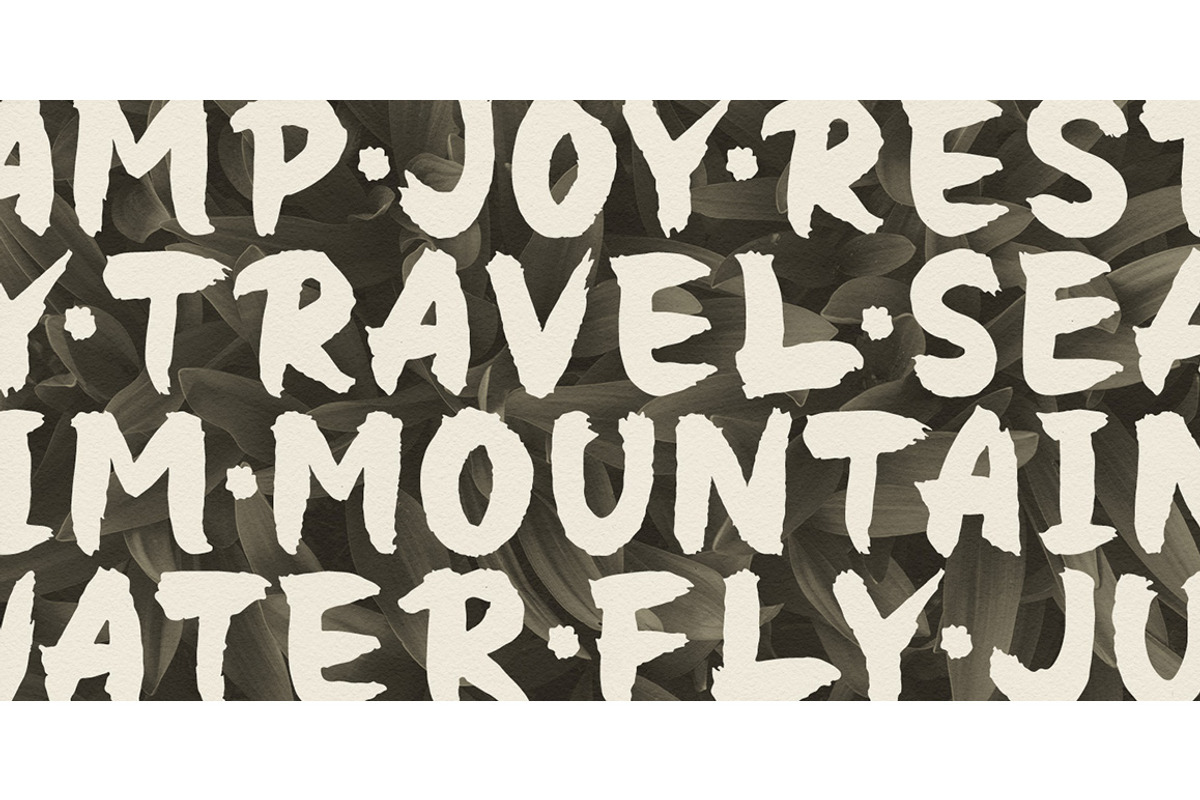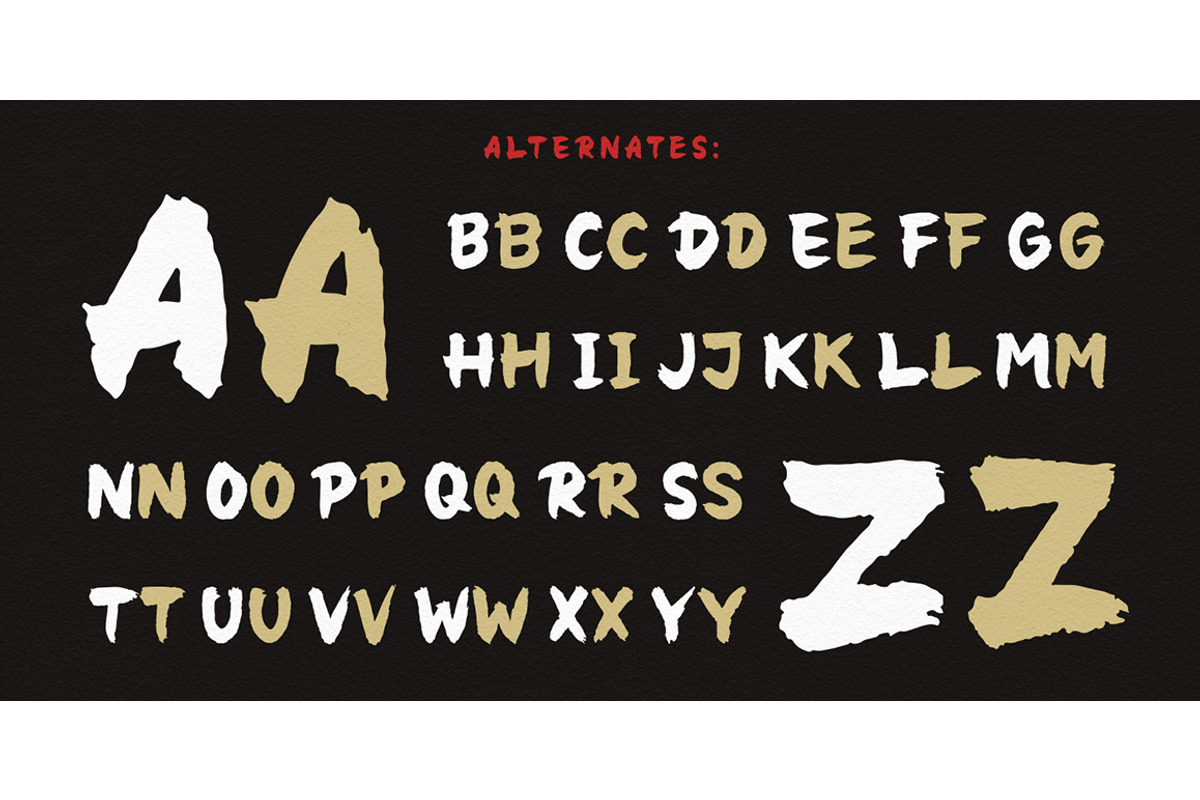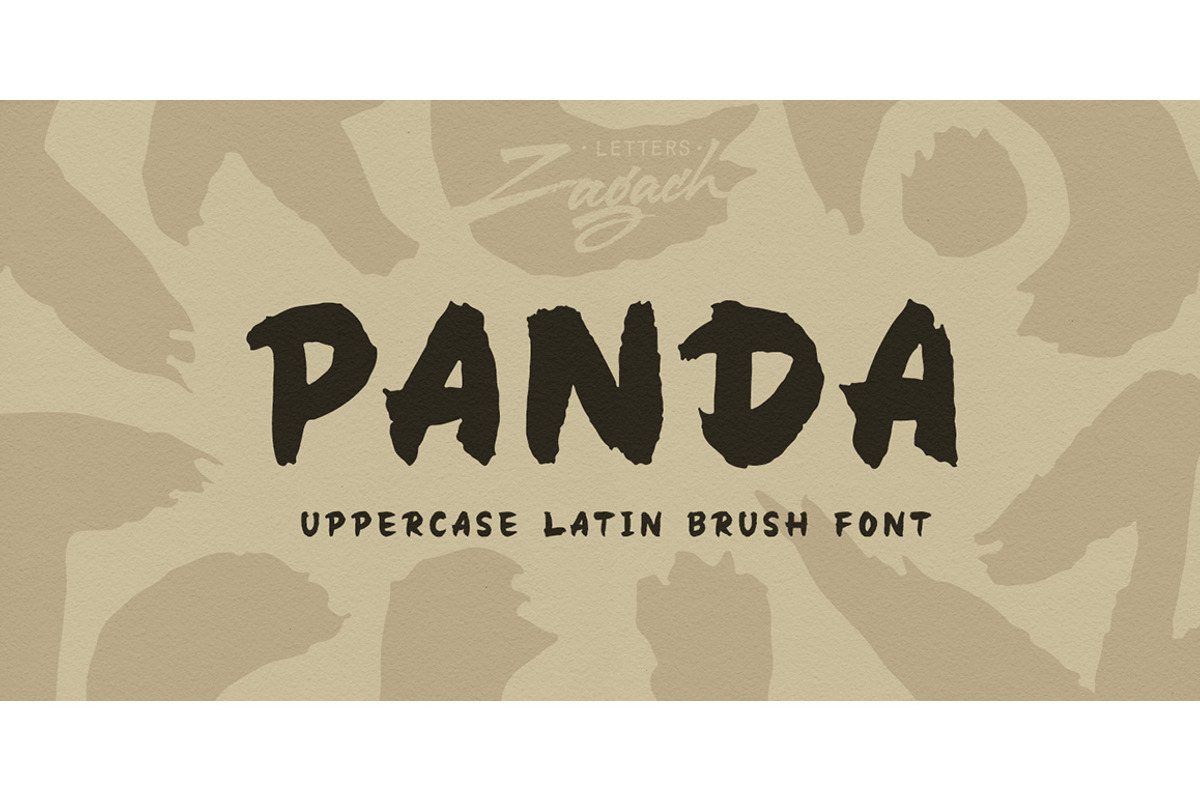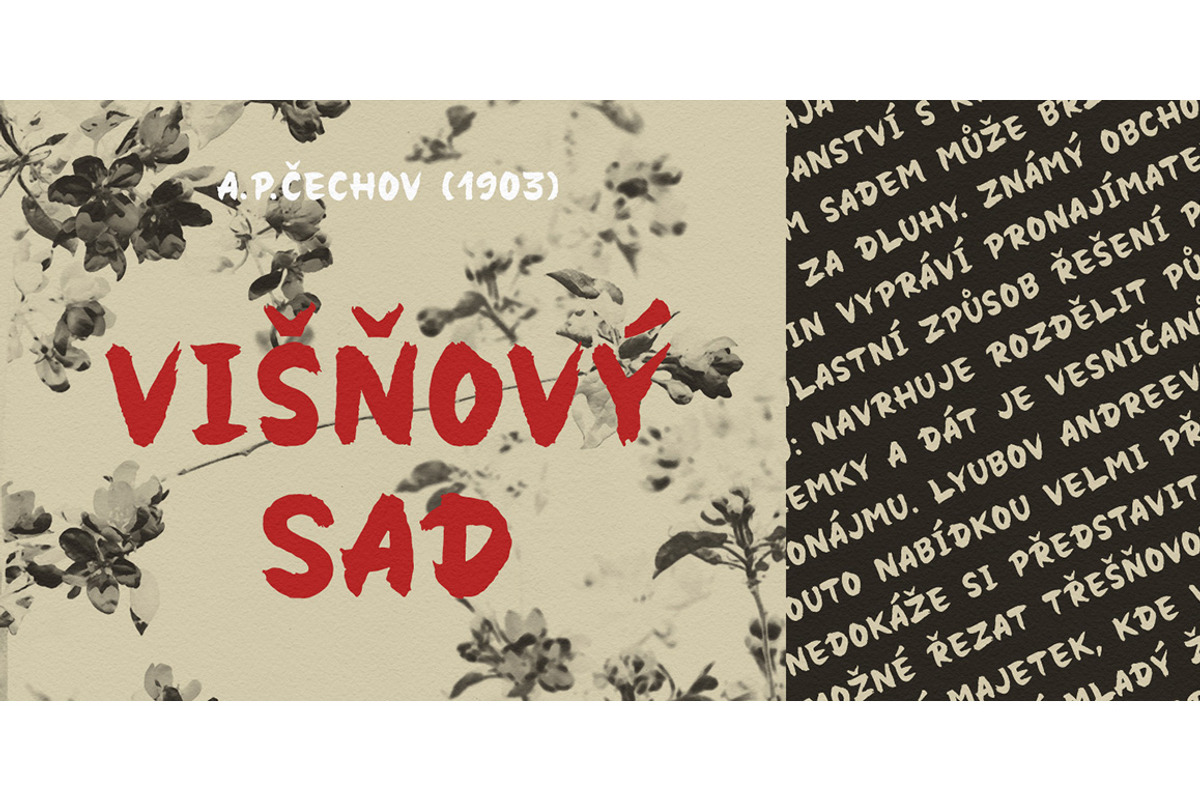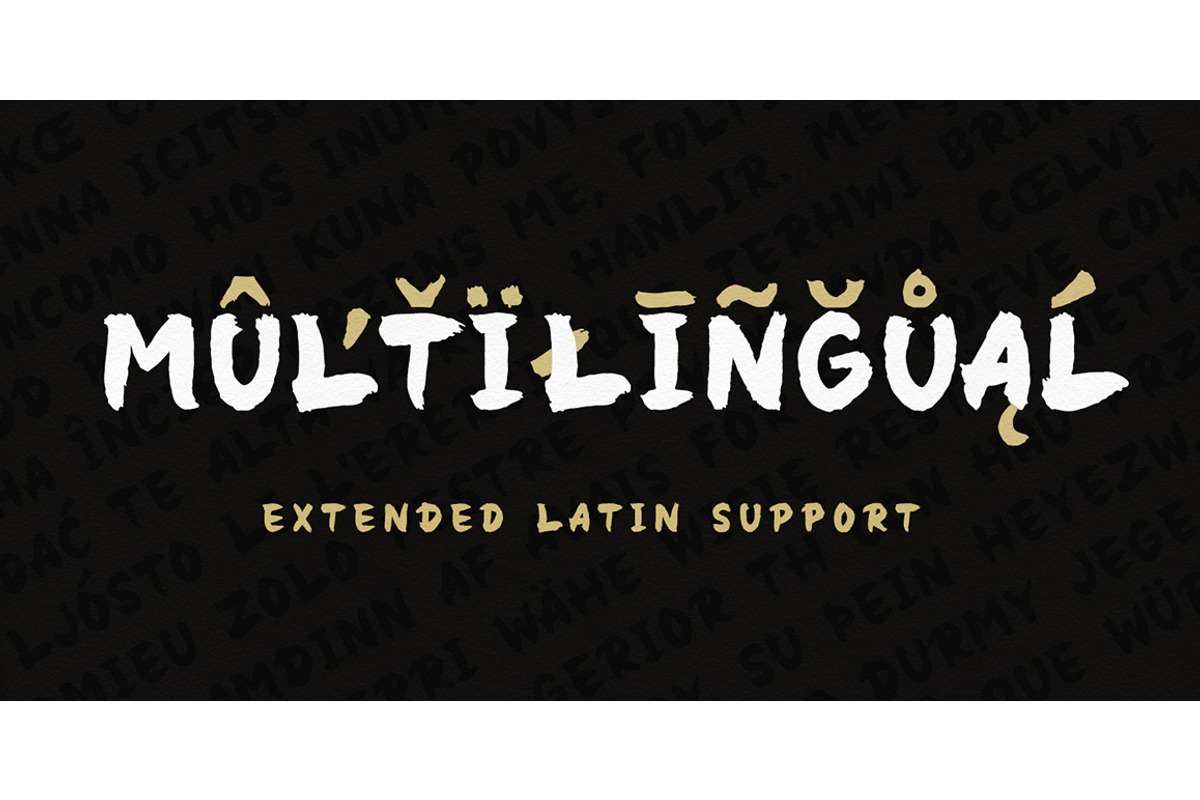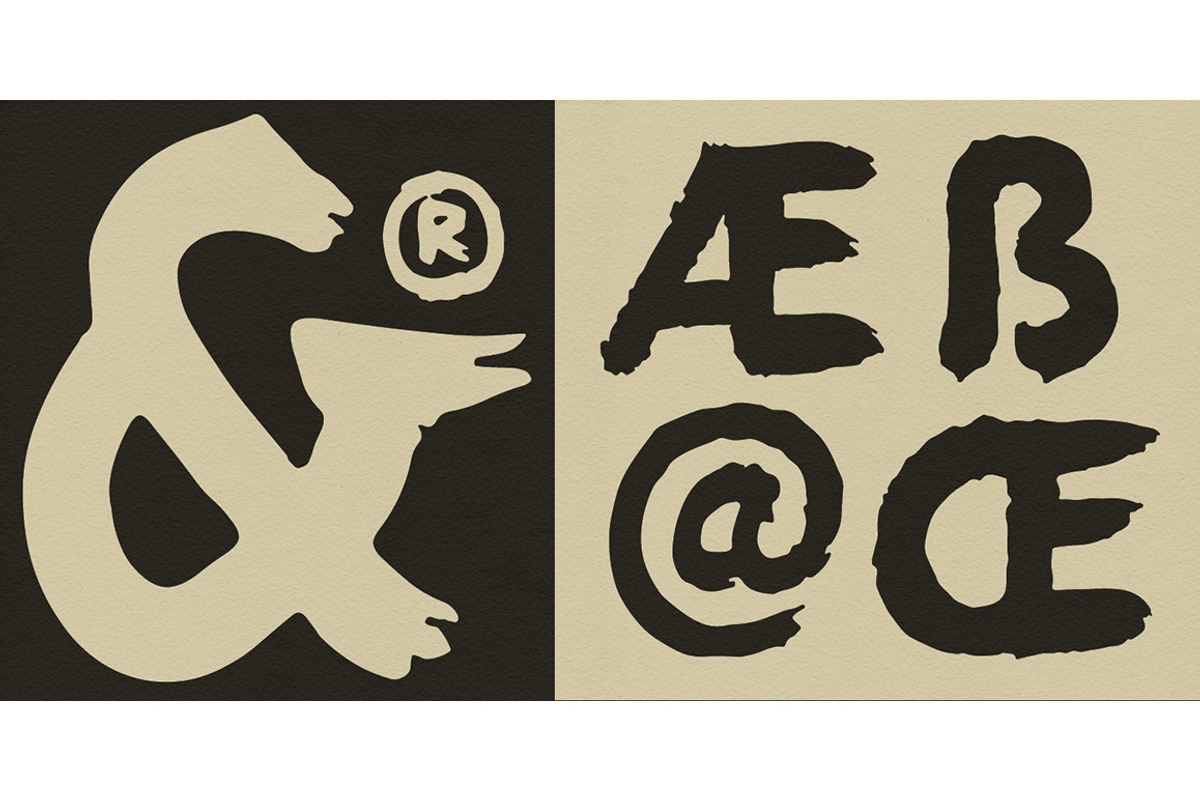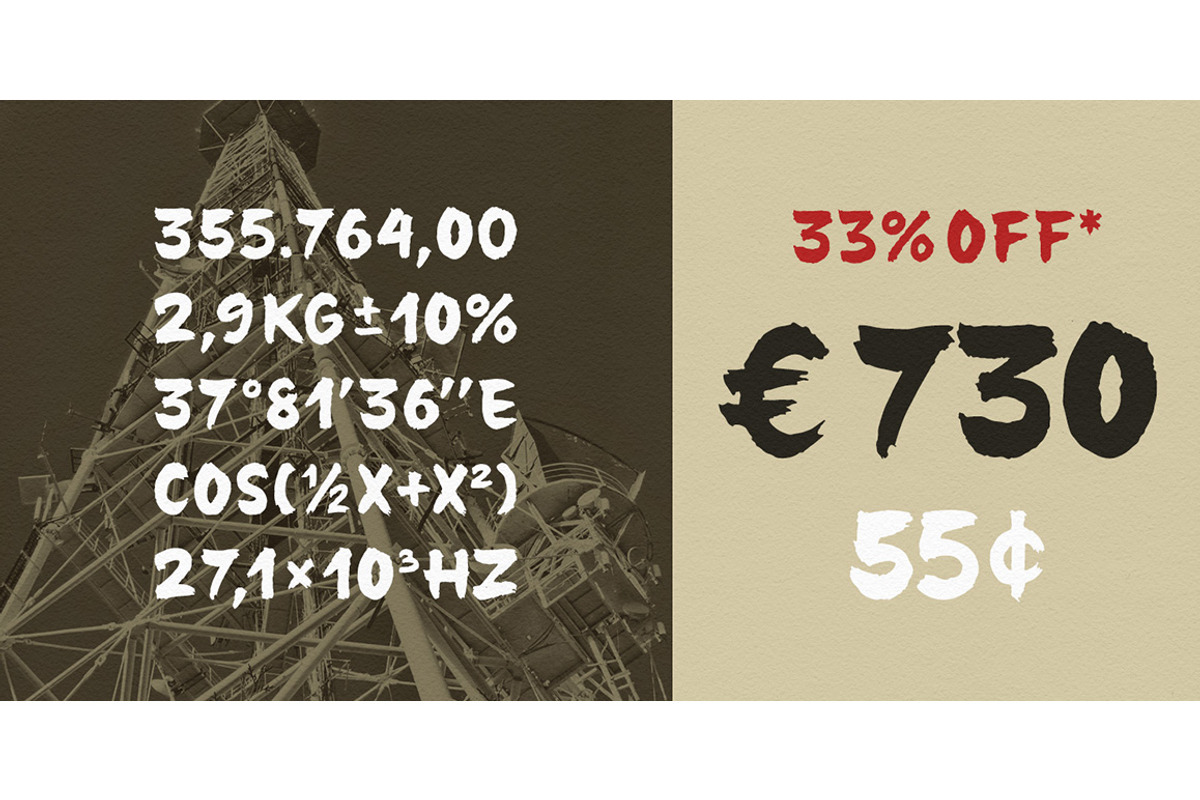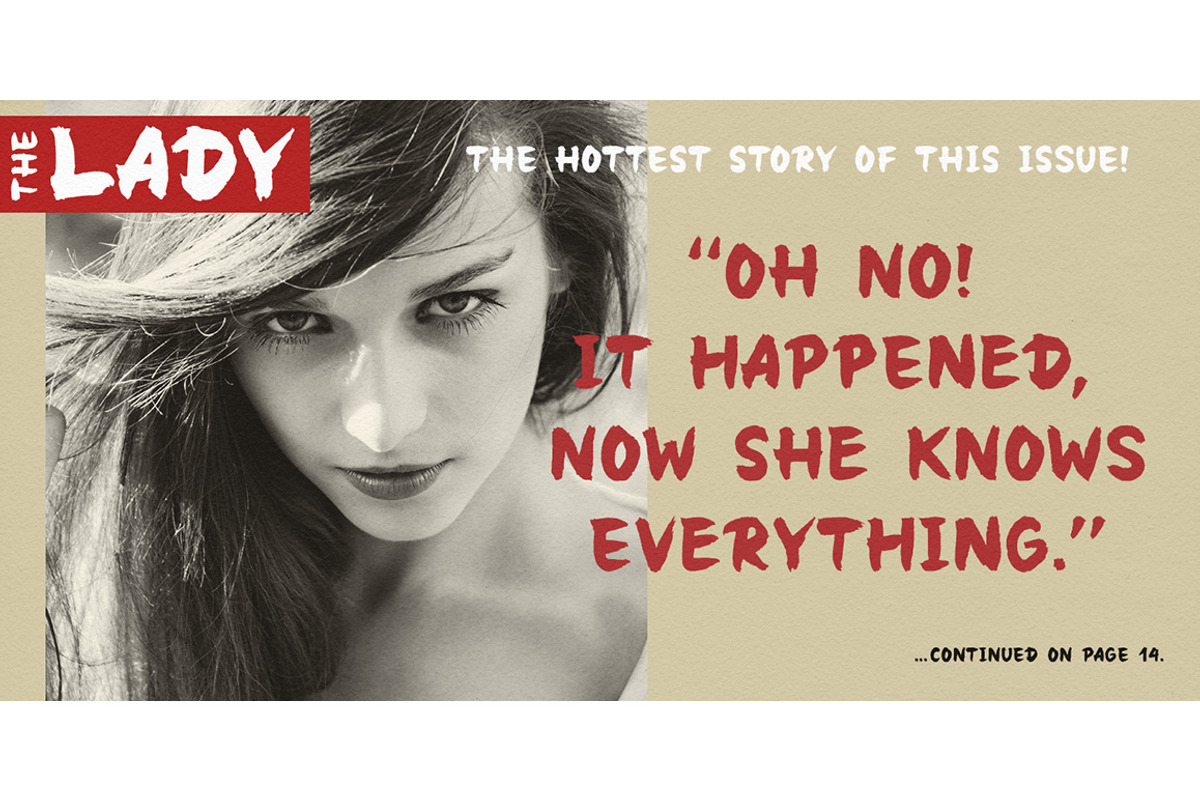
Panda Font
Panda is an uppercase latin font by Zagach Letters. It’s a handwritten brush script which could be described as soft, fluffy and cute.
Panda has a variety of coded features to create unique text designs, stylistic alternates from A to Z and numerals from 0 to 9 which makes your designs to look more natural, AE OE ligatures, currency symbols and punctuation. You can access alternates by turning on “Stylistic Alternates” or “Contextual Alternates” buttons on in Photoshop's Character panel or via any software with a glyphs panel (like Adobe Illustrator). It is perfect for titles, headlines, greeting cards, stationery design, packaging, magazines, posters and more.
Multilingual support. Extended latin character base that covers most European languages. Test your characters in the font previewer below before purchase.
Designed by Yuri Zagachevsky.